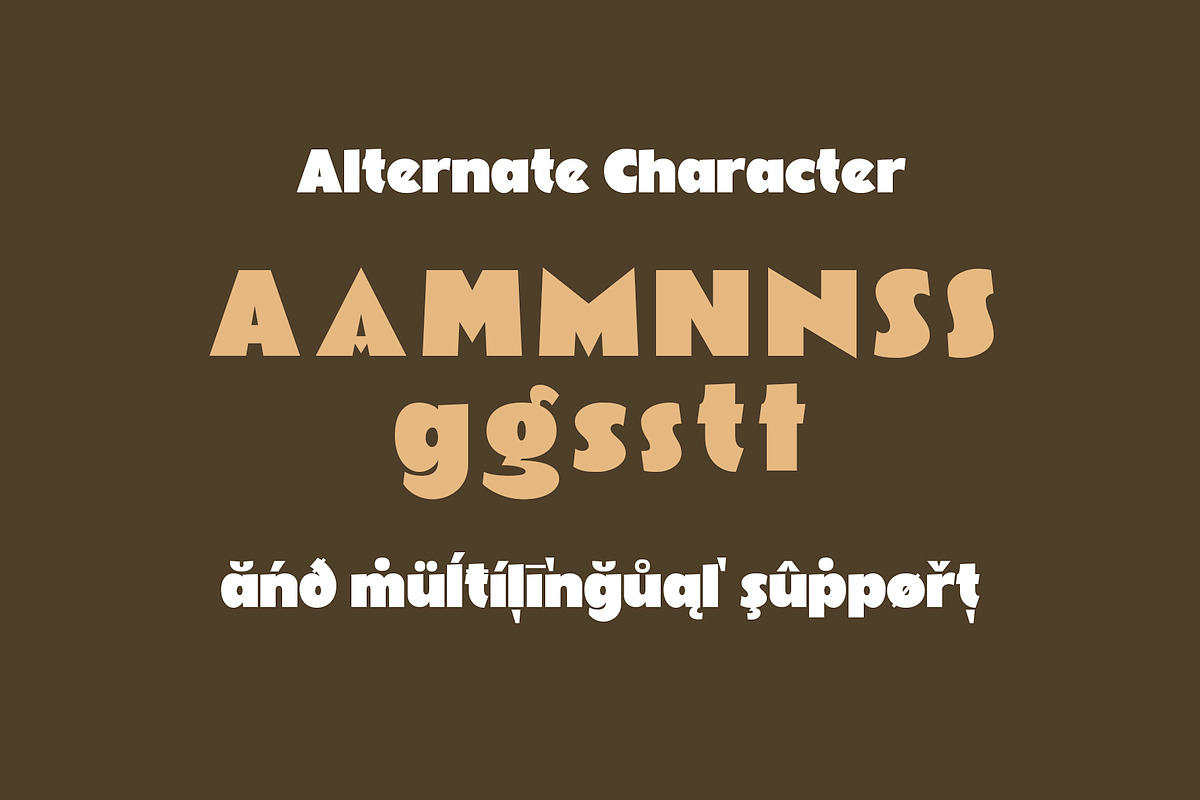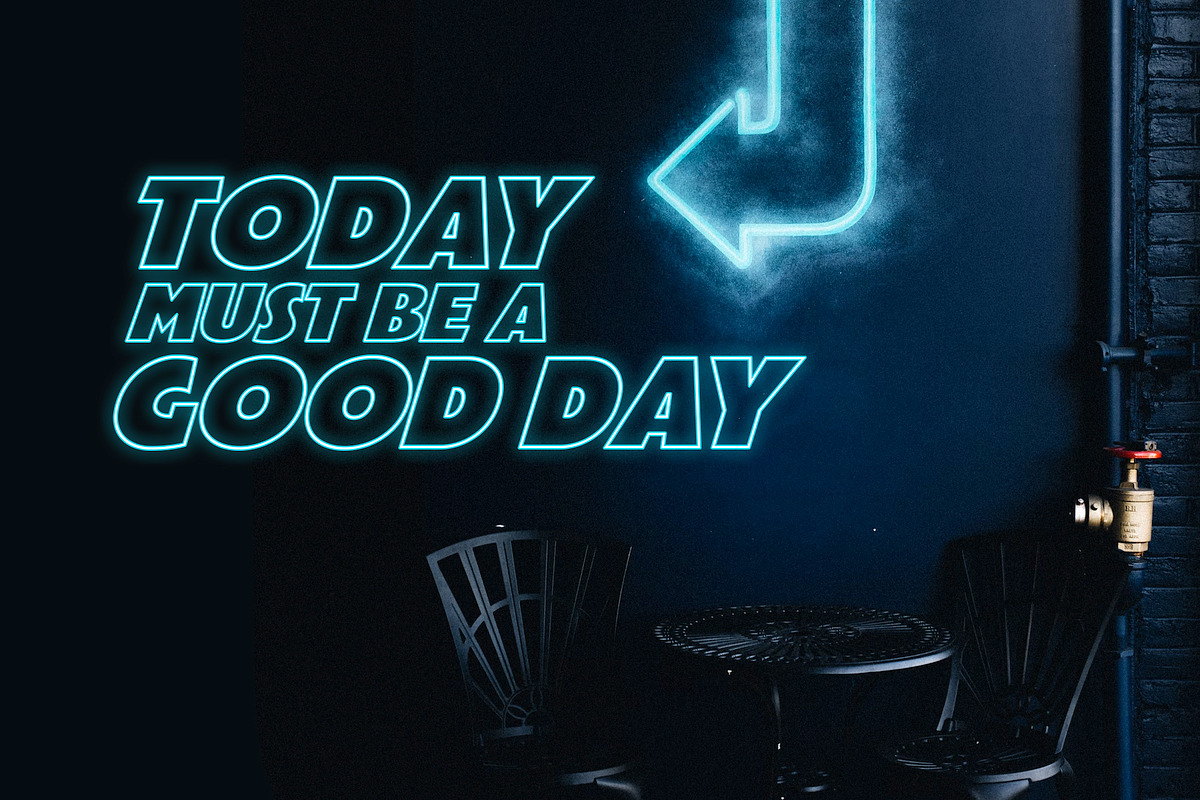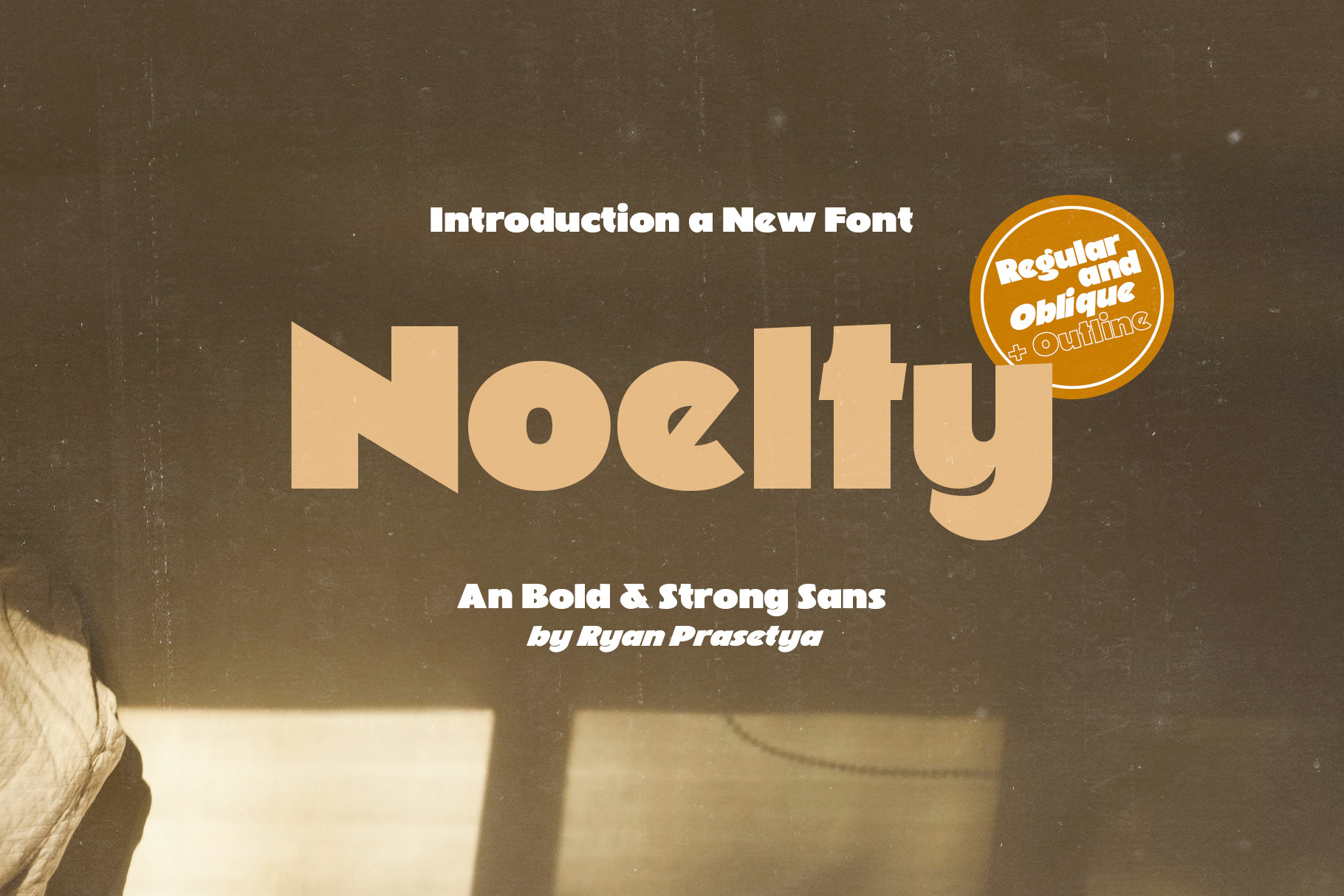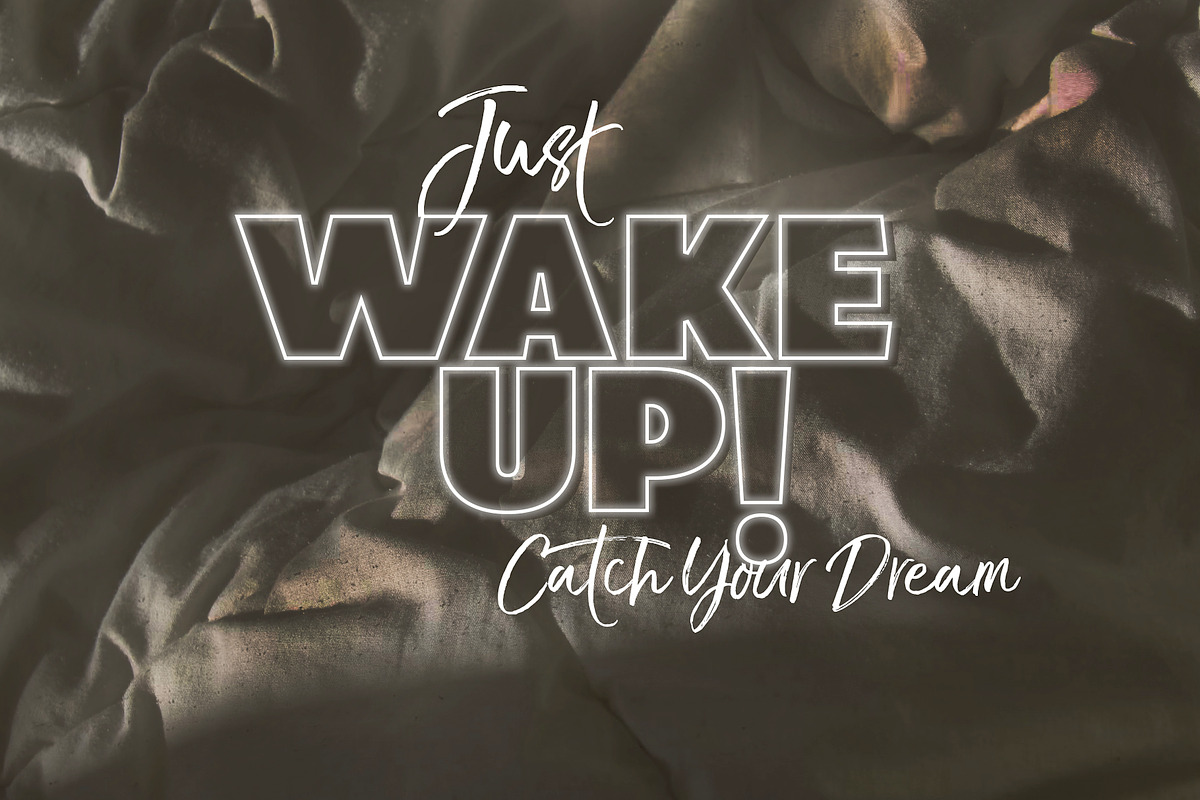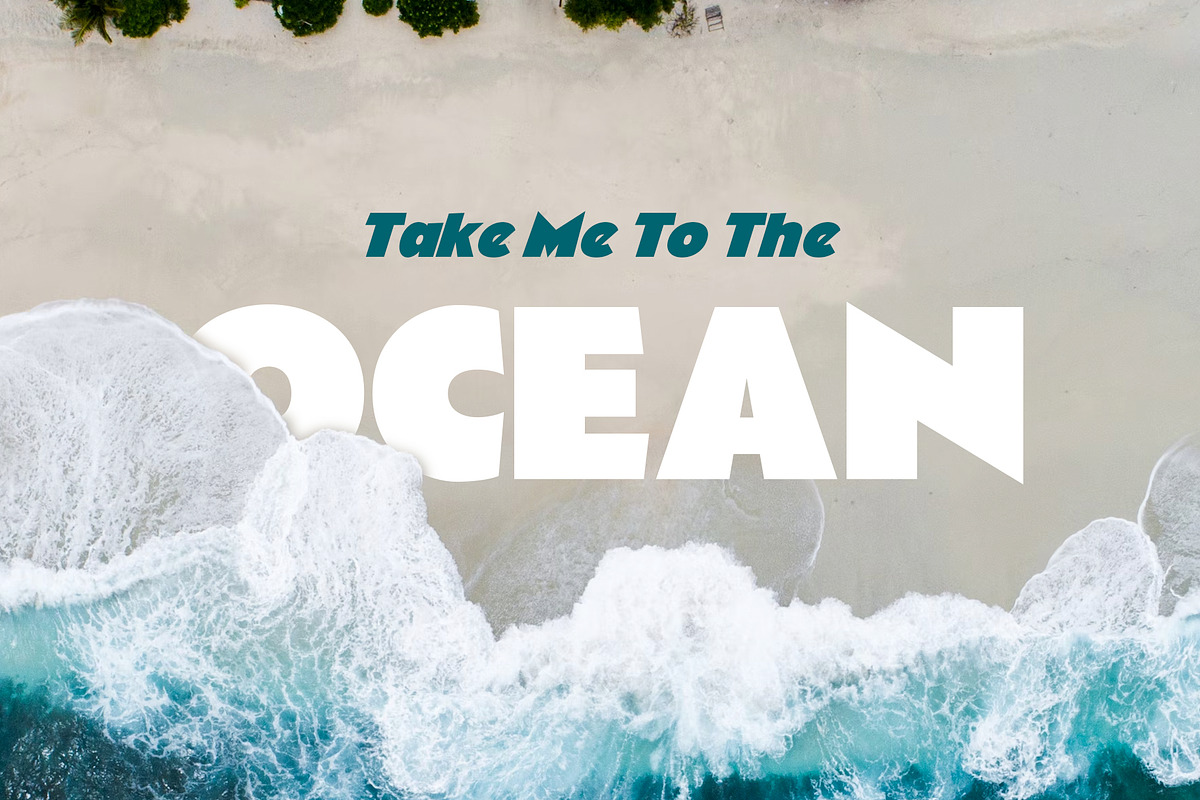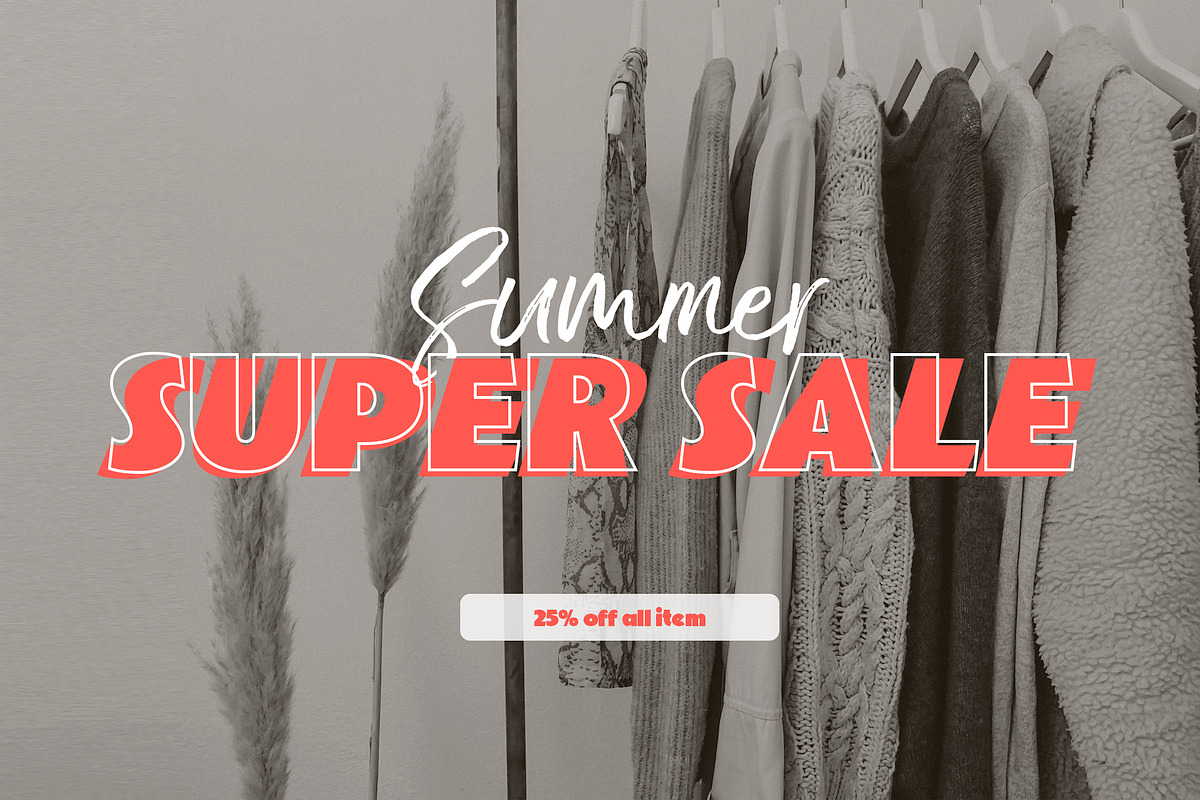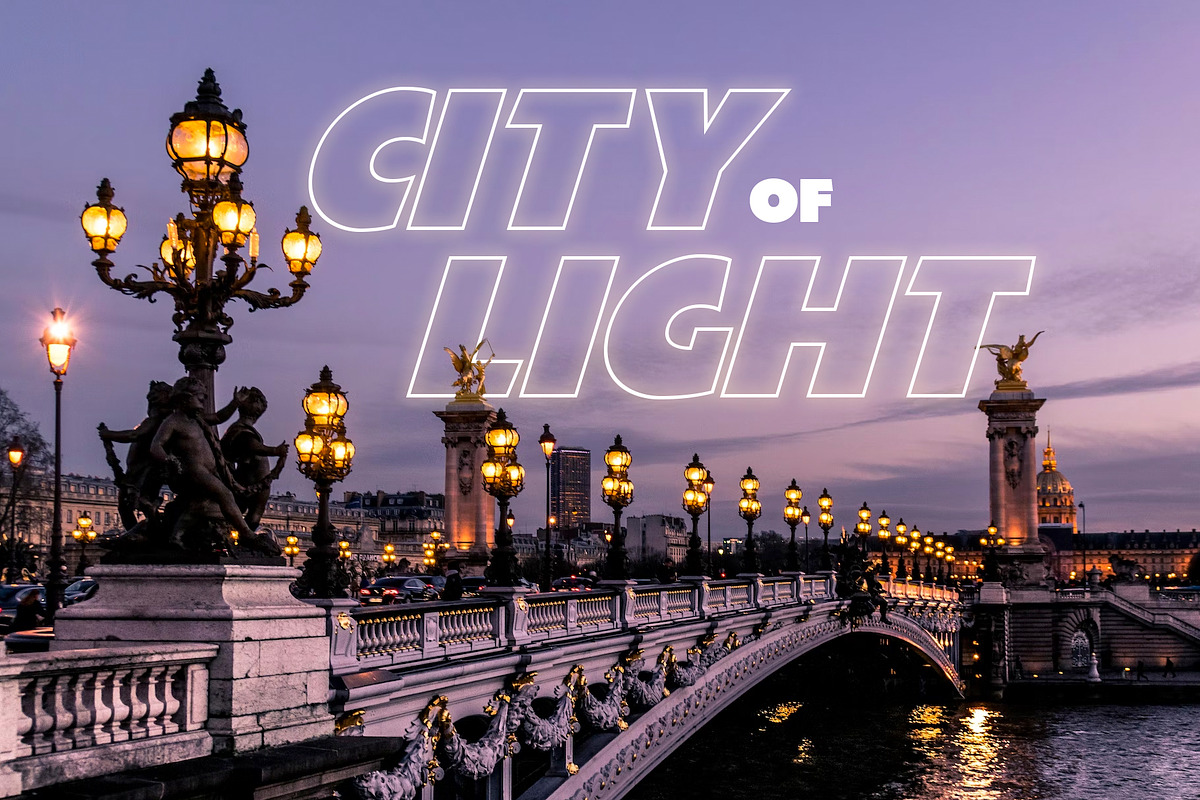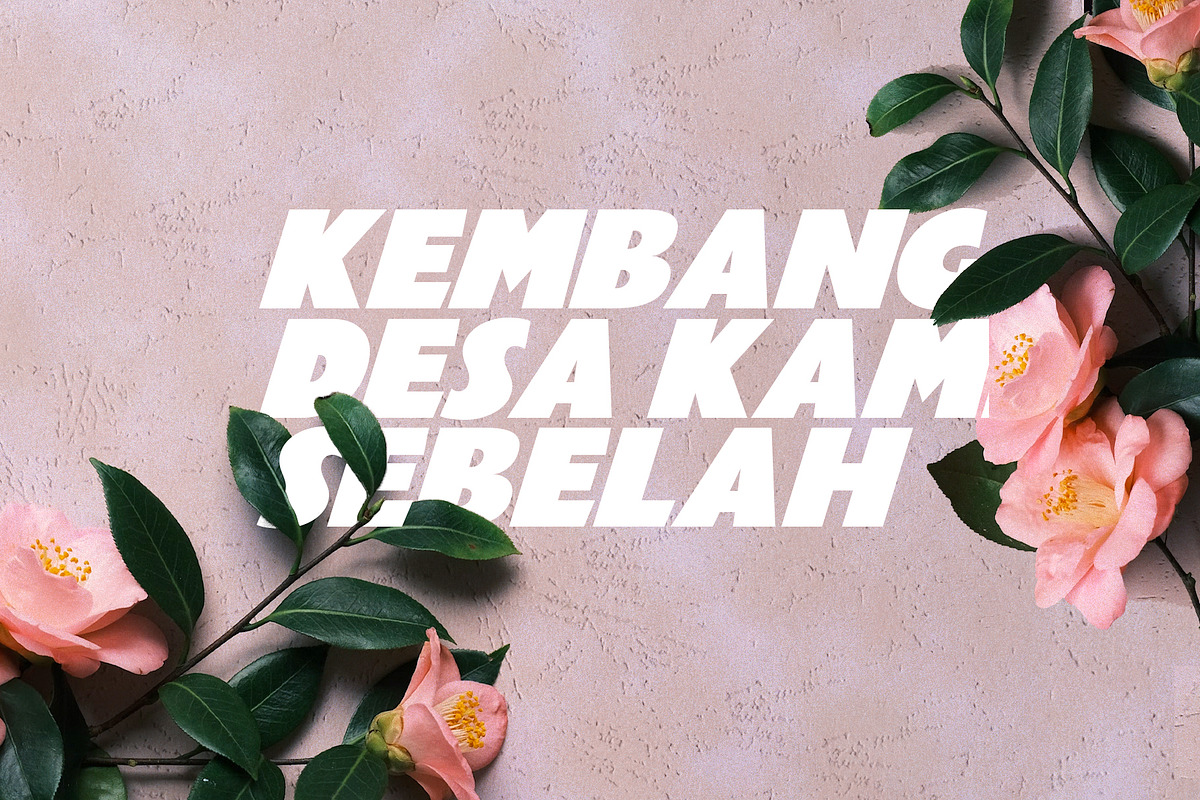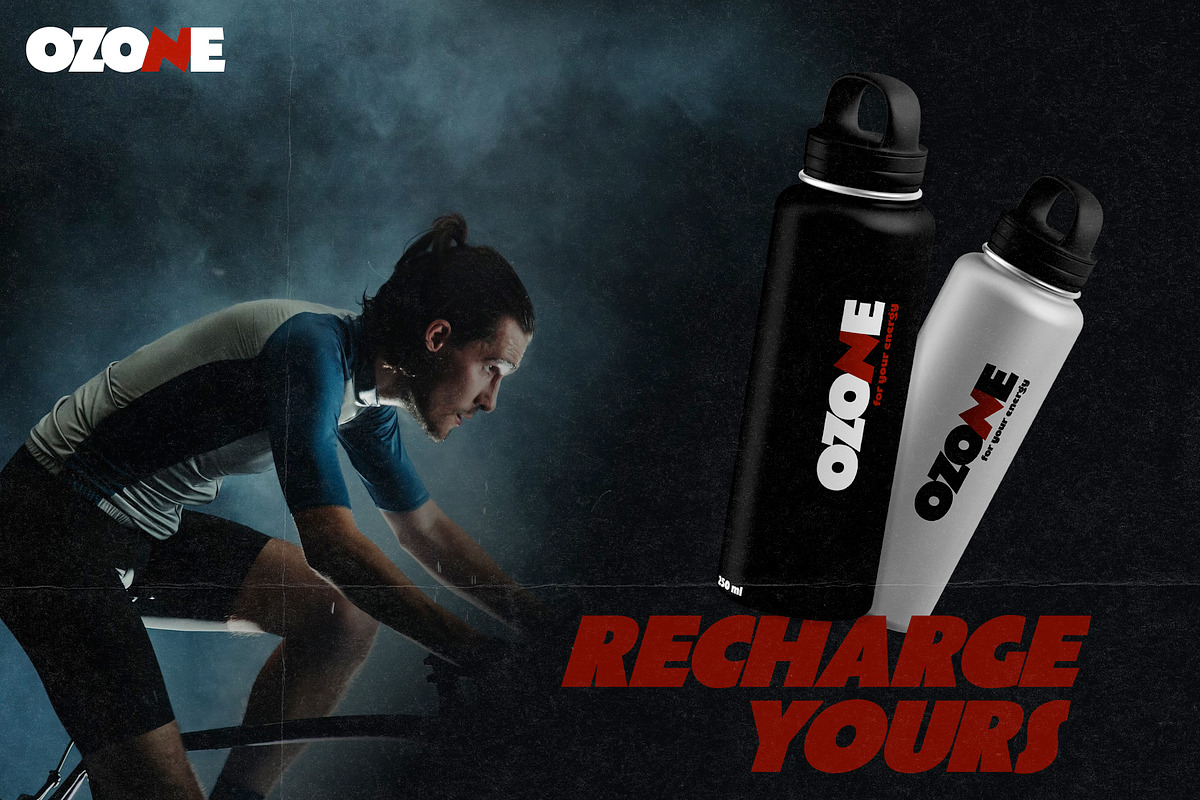
Noelty 4 Styles Bold Sans Font
Say hello to NOELTY a new bold sans with strong character The font contain some alternate characters that make different to your design and consist to bring you lot of language support, you can try your language on type box and The font came with 4 styles :
- Oblique
- Outline
- Oblique Outline
Multilingual Support Like our other font this font covered basic latin language. See list :Chiga, Congo Swahili, Cornish, Croatian, Czech, Danish, English, Estonian, Faroese, Filipino, Finnish, French, Galician, German, Gusii, Hungarian, Icelandic, Indonesian, Irish, Italian, Kabuverdianu, Kalenjin, Kinyarwanda, Luo, Luyia, Machame, Makhuwa-Meetto, Makonde, Malagasy, Malay, Manx, Morisyen, North Ndebele, Norwegian Bokmål, Norwegian Nynorsk, Nyankole, Oromo, Portuguese, Romansh, Rombo, Rundi, Rwa, Samburu, Sango, Sangu, Sena, Shambala, Shona, Slovak, Slovenian, Soga, Somali, Spanish, Swahili, Swedish, Swiss German, Taita, Teso, Turkmen, Vunjo, Zulu